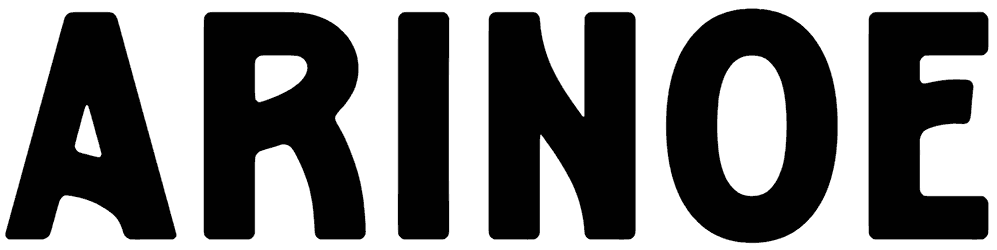
Arinoe Font
For designing perfect graphic content, every piece of your work, including the font must be flawless, and on this occasion, a magical all-caps retro font similar to the Arinoe can be your survivor.
This chunky sans-serif font comes with bold letters and looks insanely perfect for any kind of creative ideas, ranging from social media posts, book covers, stickers, and video game brochures to flyers. It can evoke a sense of jauntiness, professionalism, and dynamism in the audience’s minds.